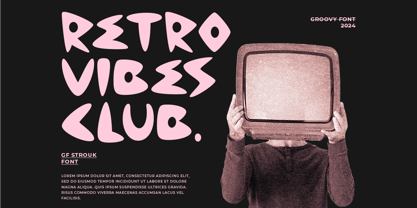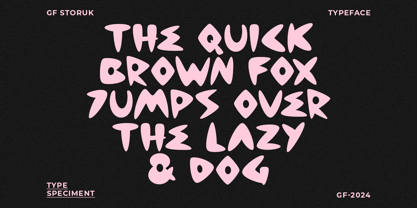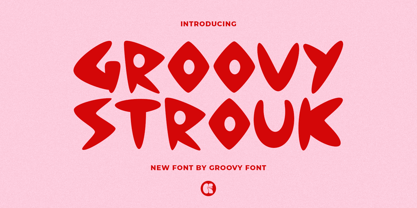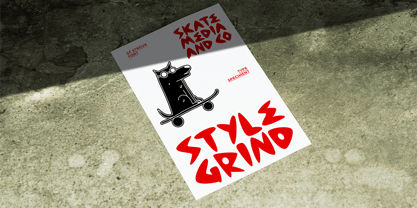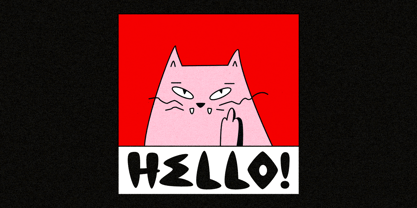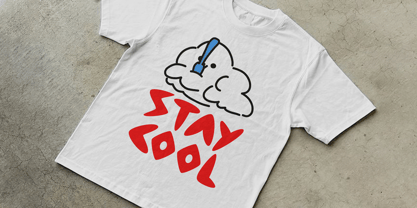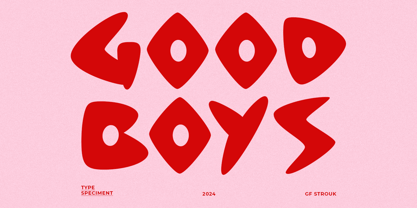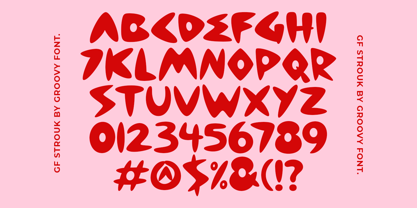
GF Strouk
by Groovy Font
The GF Strouk Font Family was designed by Ahmad Ginanjar Riyadi and published by Groovy Font. GF Strouk contains 1 styles.
Groovy Strouk is a stylish and eye-catching display font that exudes a groovy, retro vibe. With its balanced weight and distinctive letterforms, it is well-suited for titles, headlines, and other prominent text.
This font strikes a harmonious balance between being attention-grabbing and not overly bold, making it versatile for various design applications. Whether used in print or digital media, Groovy Strouk adds a touch of retro flair to any project.
Designers: Ahmad Ginanjar Riyadi
Publisher: Groovy Font
Foundry: Groovy Font